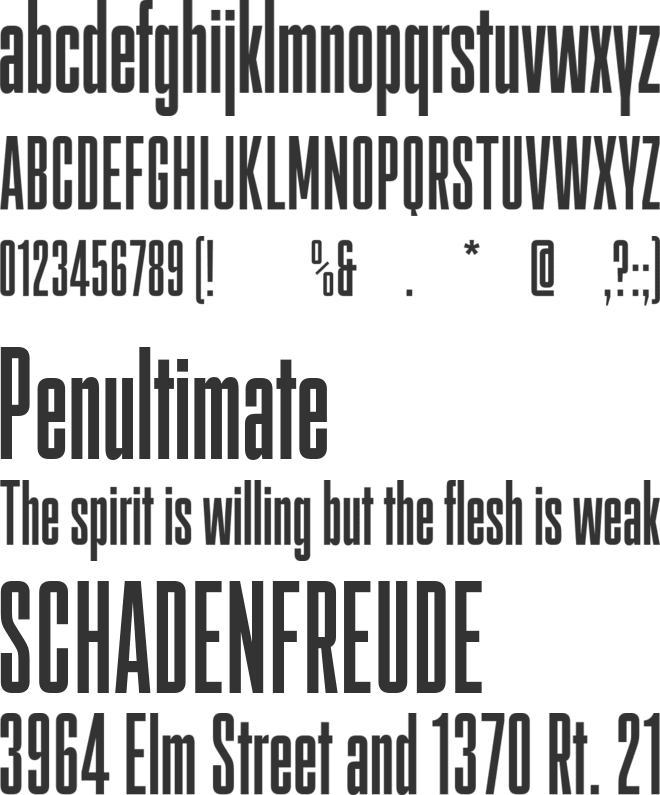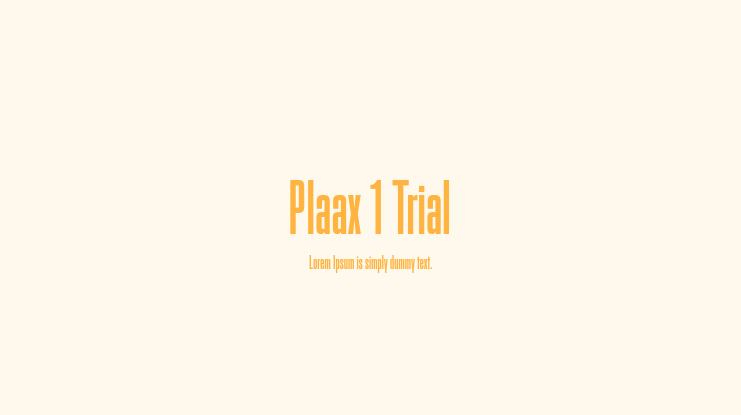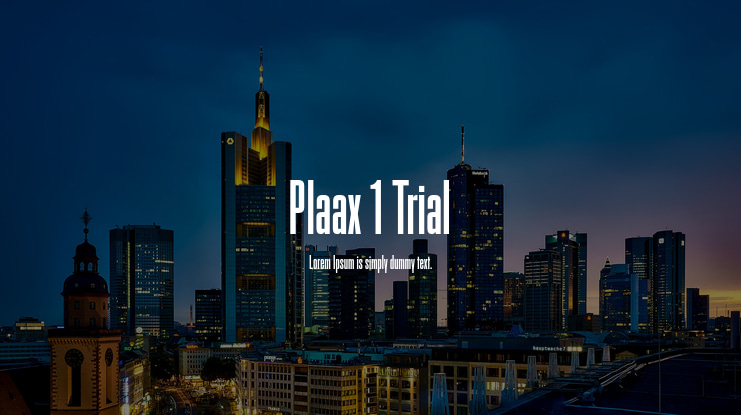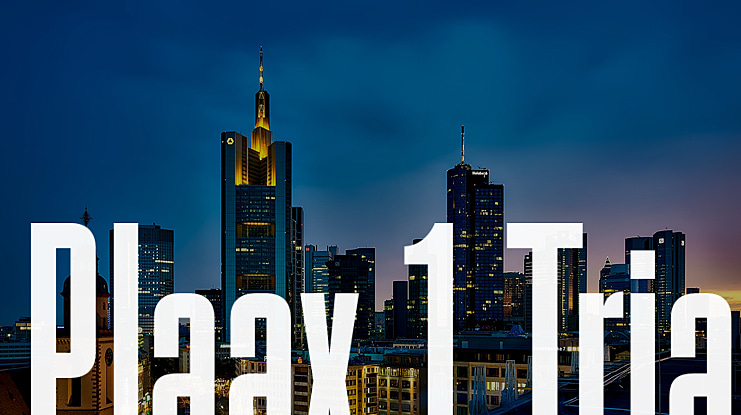
Plaax 1 Trial Font Family
Damien Gautier
This font is designed with space sensitive environments in mind. Plaax (with an x) is an extension of the typeface Plaak (with a k) completed with lowercase letters. Plaax is a large family of 20 cuts. This typeface takes its inspiration from the characters that one can find on the nameplates of French streets. For a long time, Damien Gautier has been interested in these letters that everyone sees on a daily basis without really knowing them. No one seems to pay them any attention and yet they reveal themselves to be particularly interesting due to their great diversity. Though we can imagine that it is always a question of the same typeface, a closer study shows that a number of alphabets co-exist. One common point: elementary, robust forms, that seem more to have been traced than drawn by a few industrial draughtsmen, eager to be able to compose names of streets, avenues and boulevards in the restricted space of a standardised enamelled plate (well almost, this is France after all!) It is definitely not a question of smoothing out and unifying all of the drawings finishing with a slick and homogenous typeface! On the contrary, Damien Gautier wants these typefaces to conserve the disparity of the typographic forms that have been noted.